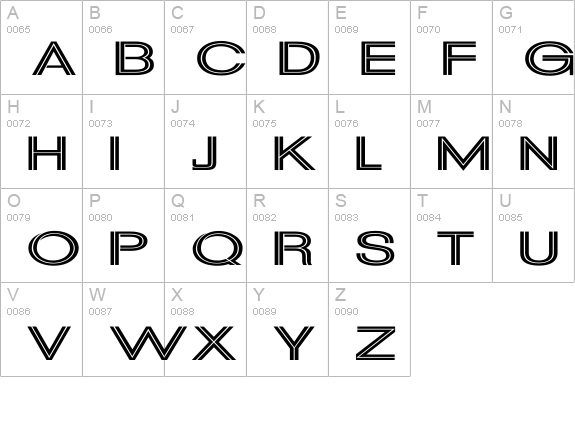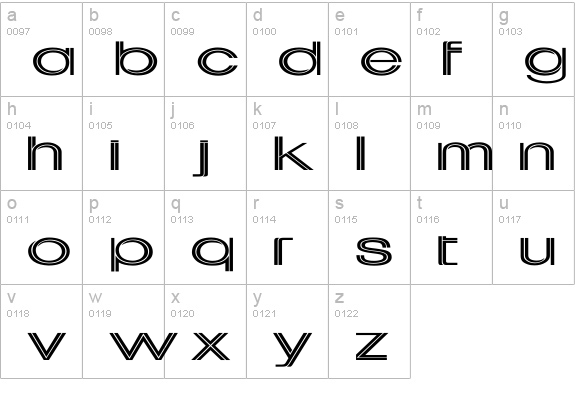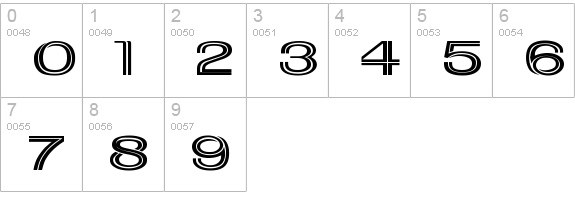
Introducing Uptight Ex, a captivating and bold display font that exudes an air of sophistication and elegance. This font is perfect for those who appreciate clean lines, sharp edges, and a touch of modernity. With its sleek and polished appearance, Uptight Ex commands attention and instantly elevates any design project. What sets Uptight Ex apart is its versatility. Whether you're looking to create eye-catching headlines, stylish logos, or stunning posters, this font will effortlessly adapt to any creative endeavor. Its well-defined letterforms and balanced spacing ensure legibility, making it an ideal choice for both print and digital media. Uptight Ex is a font that embodies confidence and a refined aesthetic. Its meticulously crafted letterforms reflect the attention to detail and dedication put into its creation. The precise angles and elegant curves give this font a unique personality that stands out from the crowd. And the best part? Uptight Ex is available for free download at FontsMarket.com. Yes, you read that right - this exceptional font is freely accessible, allowing designers and creatives to explore its endless possibilities without any limitations. Whether you're a professional designer or a passionate hobbyist, Uptight Ex empowers you to bring your vision to life without breaking the bank. So why wait? Unleash your creativity and make a lasting impression with Uptight Ex. Download it for free at FontsMarket.com and embark on a design journey that will leave a lasting impact.